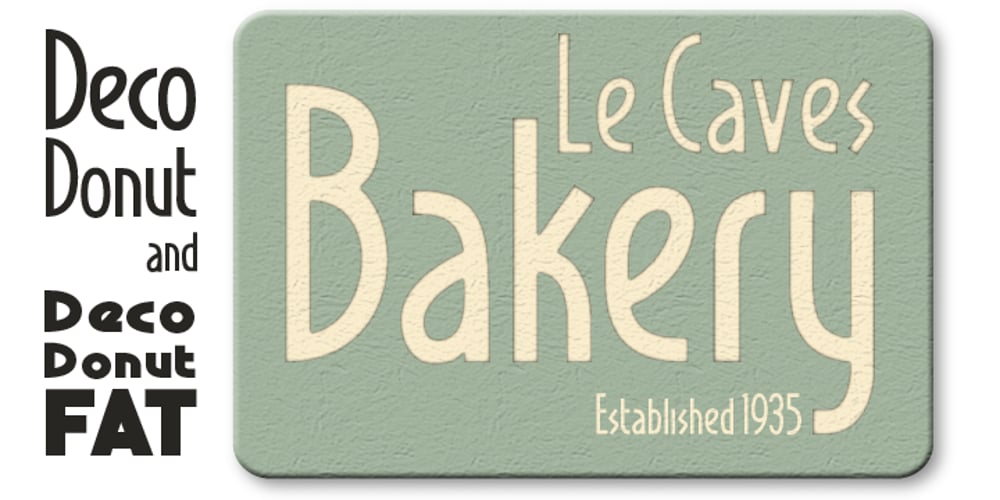
Deco Donut Font Family was designed by Randy Harris and published by Just My Type. Deco Donut contains 2 styles and family package options. On the very northern edge of South Tucson lies an Old Pueblo institution, Le Caves Bakery, Home of the Vegetable Donut. That’s what they were called when Le Caves opened; now you’d say Vegan Donut, or No Animal Products Used. Radical concept in the Brave New World of 1935. I started with the letters from their sign and extrapolated the rest of the font from those. Deco Donut Fat is extrapolated from Deco Donut. If you want a donut, type a 0 (zero).